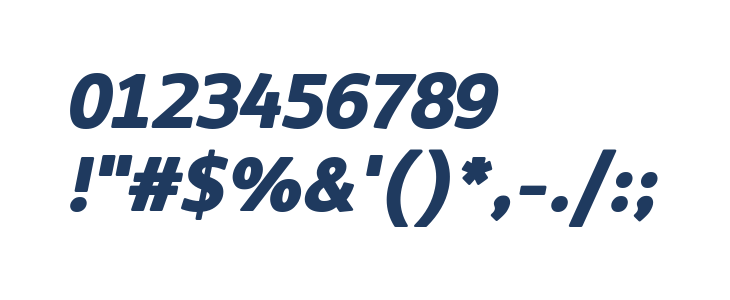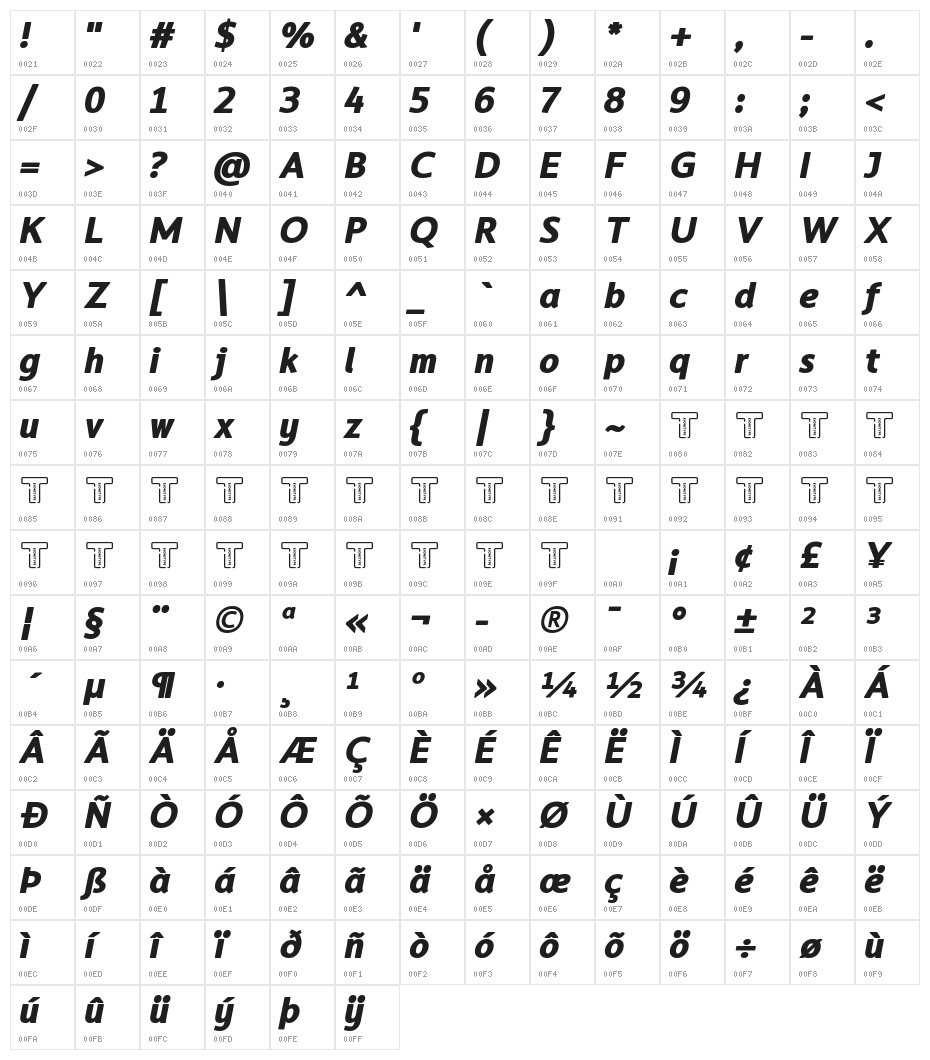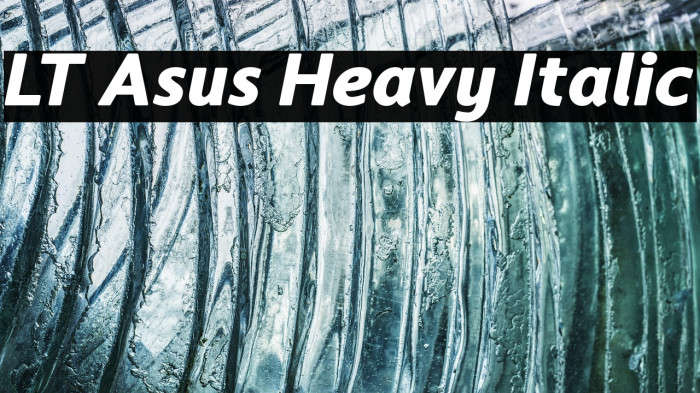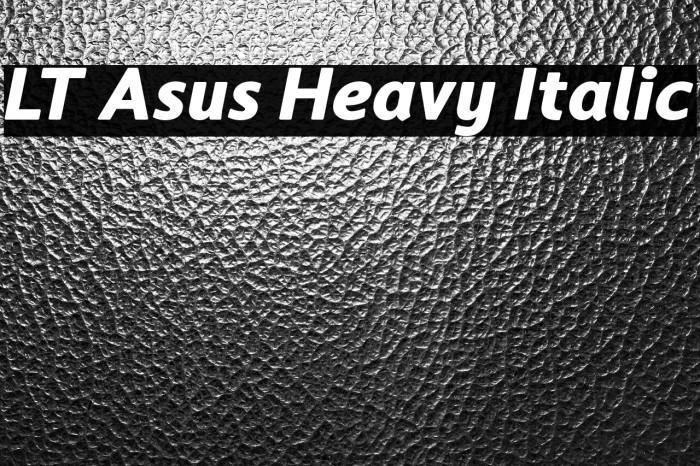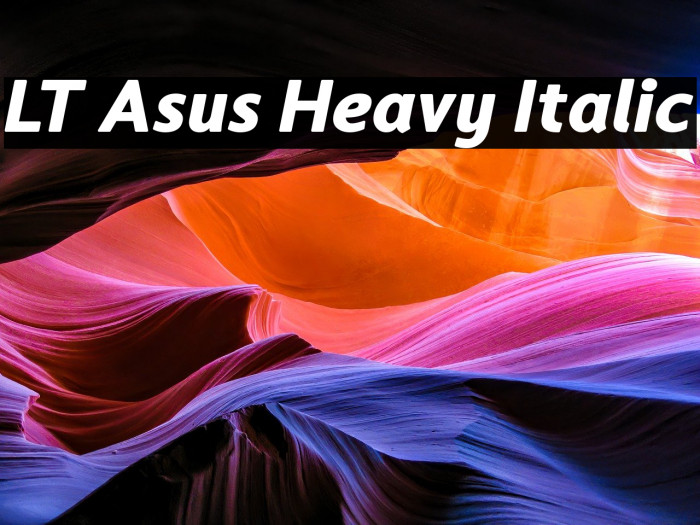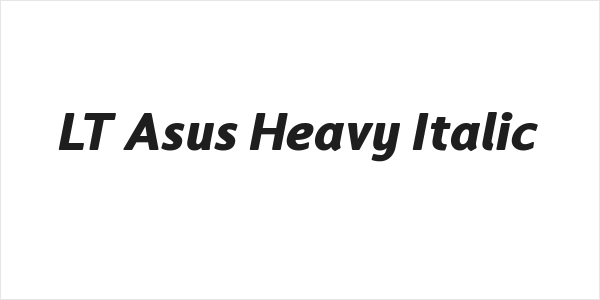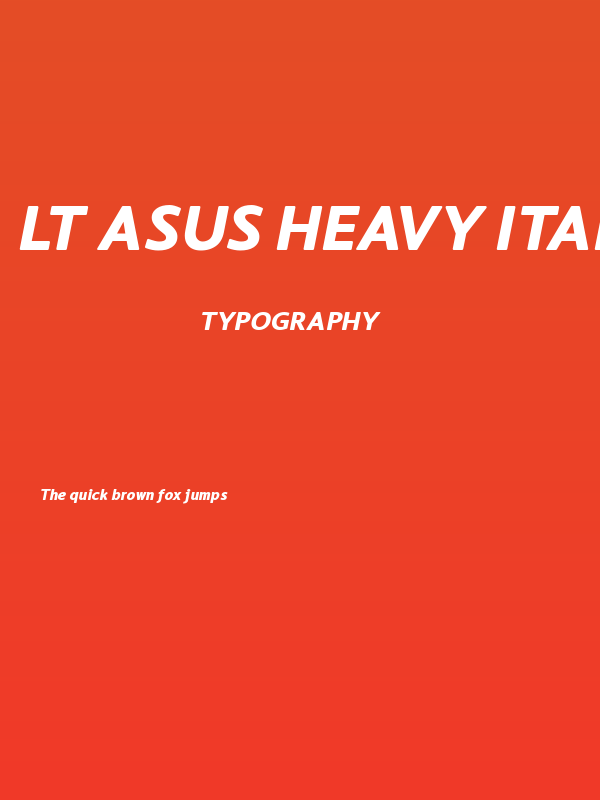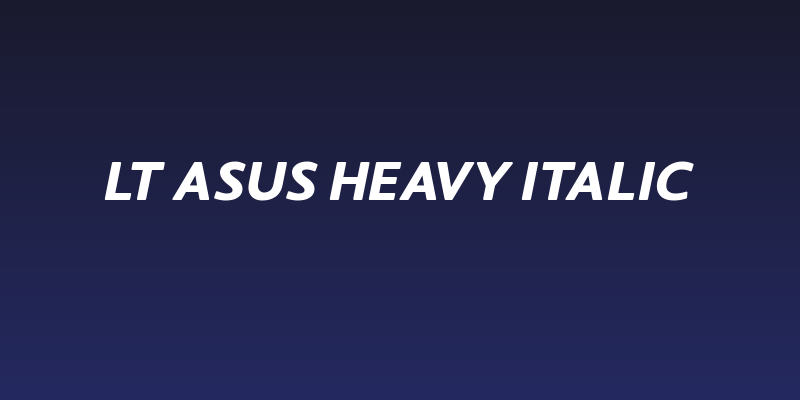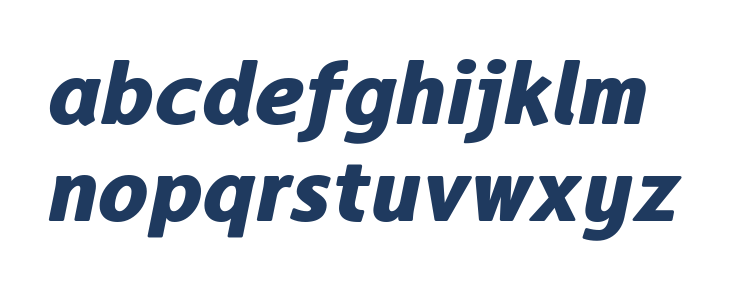
LT Asus Heavy Italic Font
LT Asus Heavy Italic Description
This font exhibits a bold and dynamic style with a strong italic slant, giving it a sense of motion and energy. The characters are robust and well-defined, with a consistent stroke thickness that enhances readability. The uppercase letters are slightly wider, providing a commanding presence, while the lowercase letters maintain a balanced proportion. The numerals are clear and distinct, making them suitable for various applications. The special characters are designed to complement the overall aesthetic, ensuring versatility in usage.
| Use Case | Headlines, Logos, Advertising |
| Proposed Projects | Ideal for branding, advertising, and headlines where a strong, impactful presence is needed. |